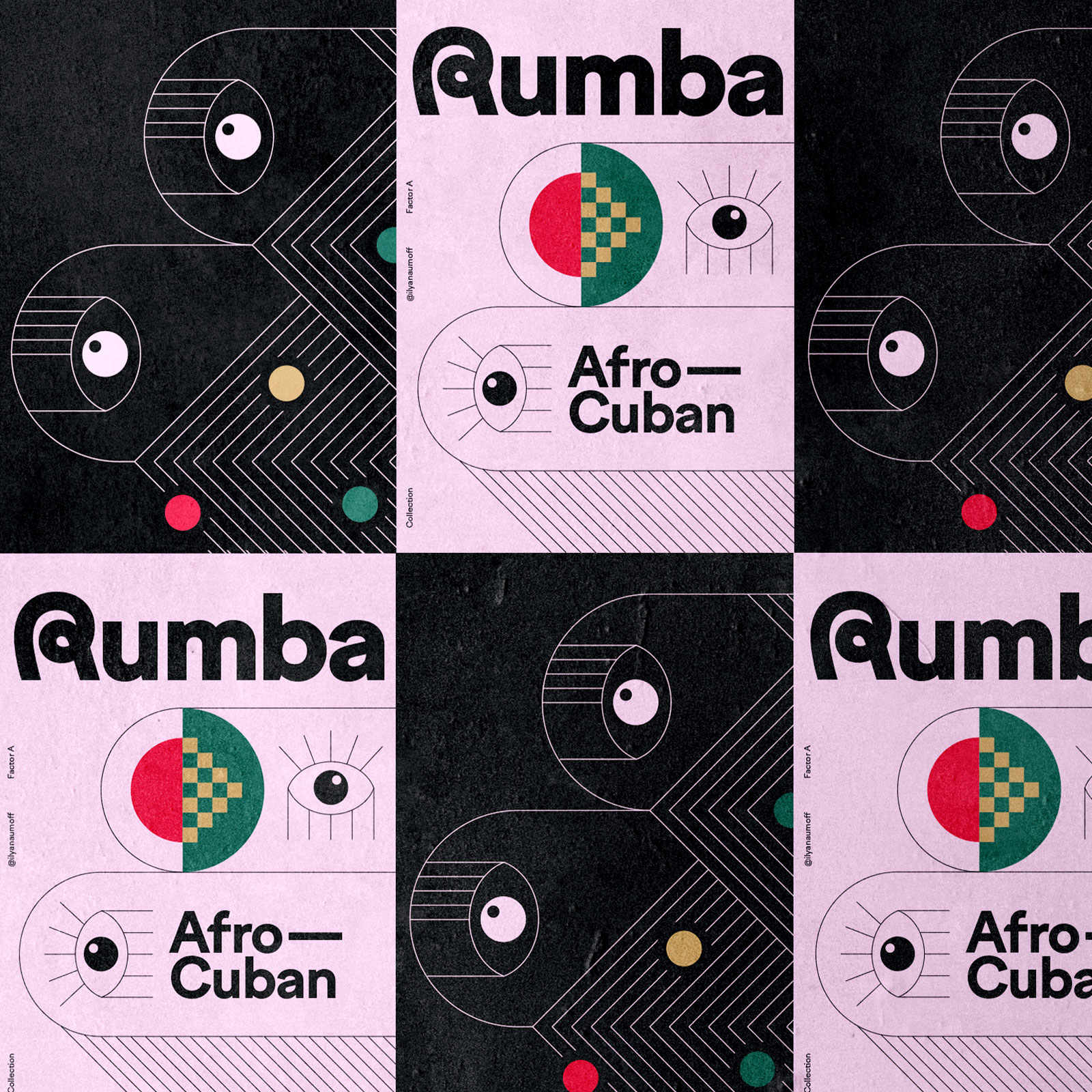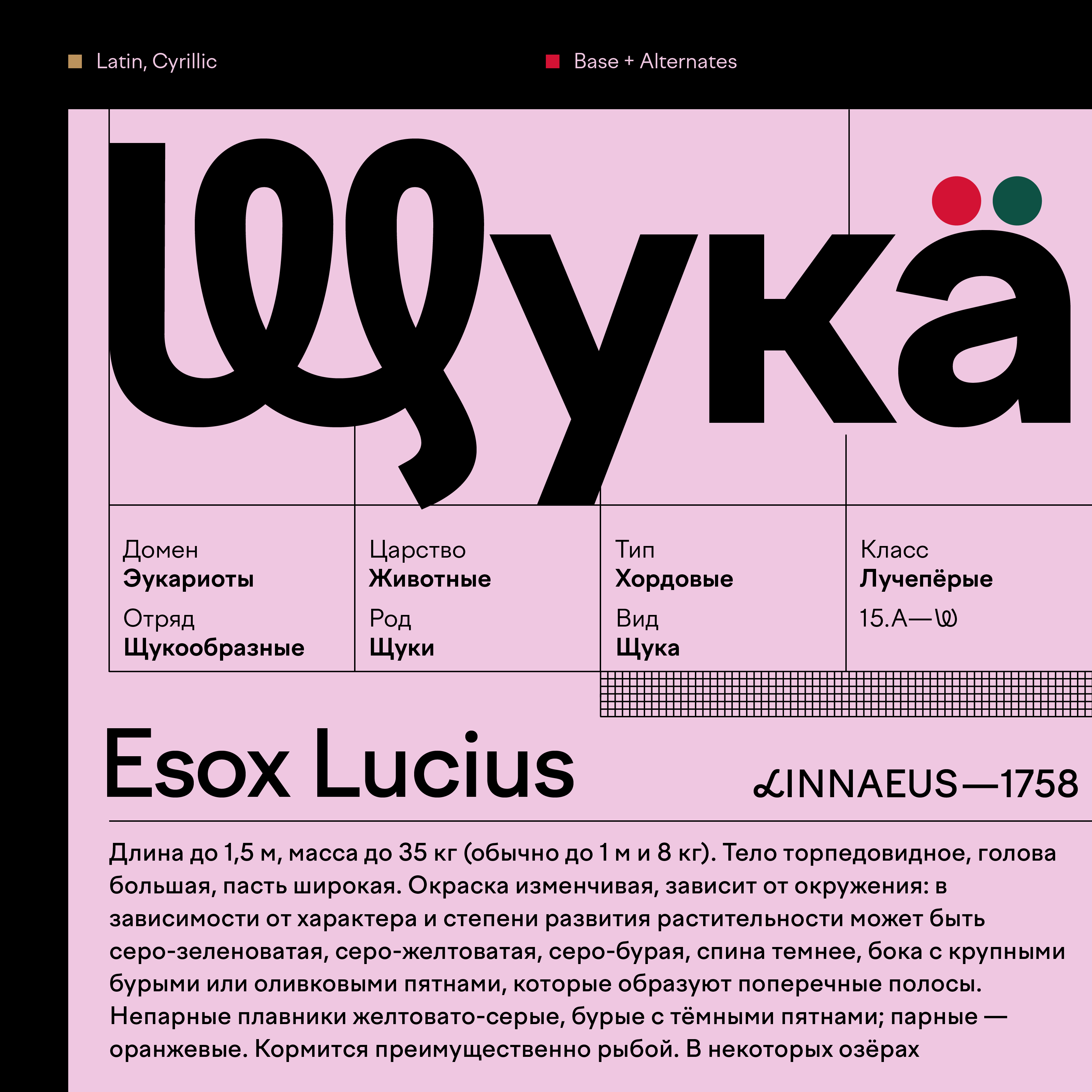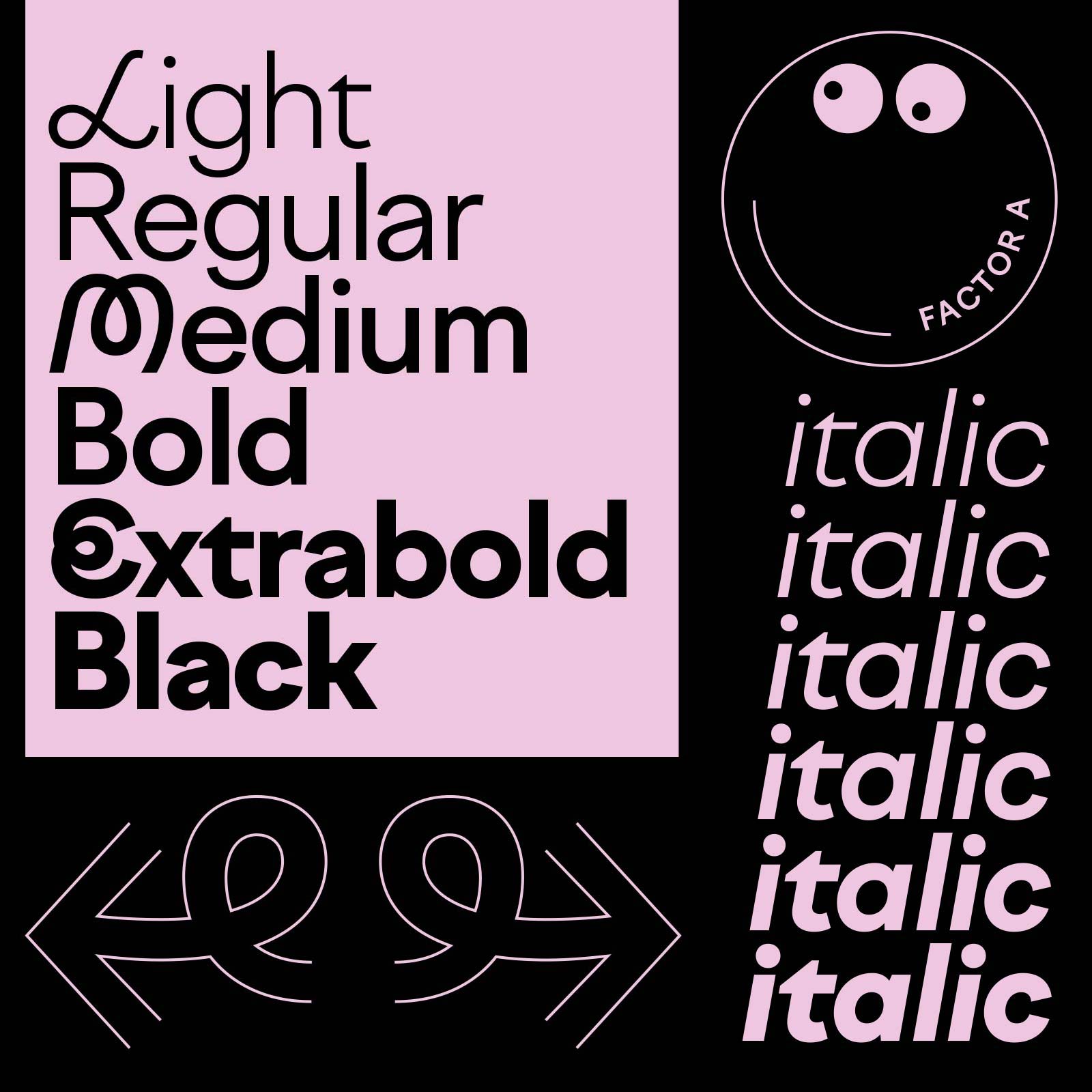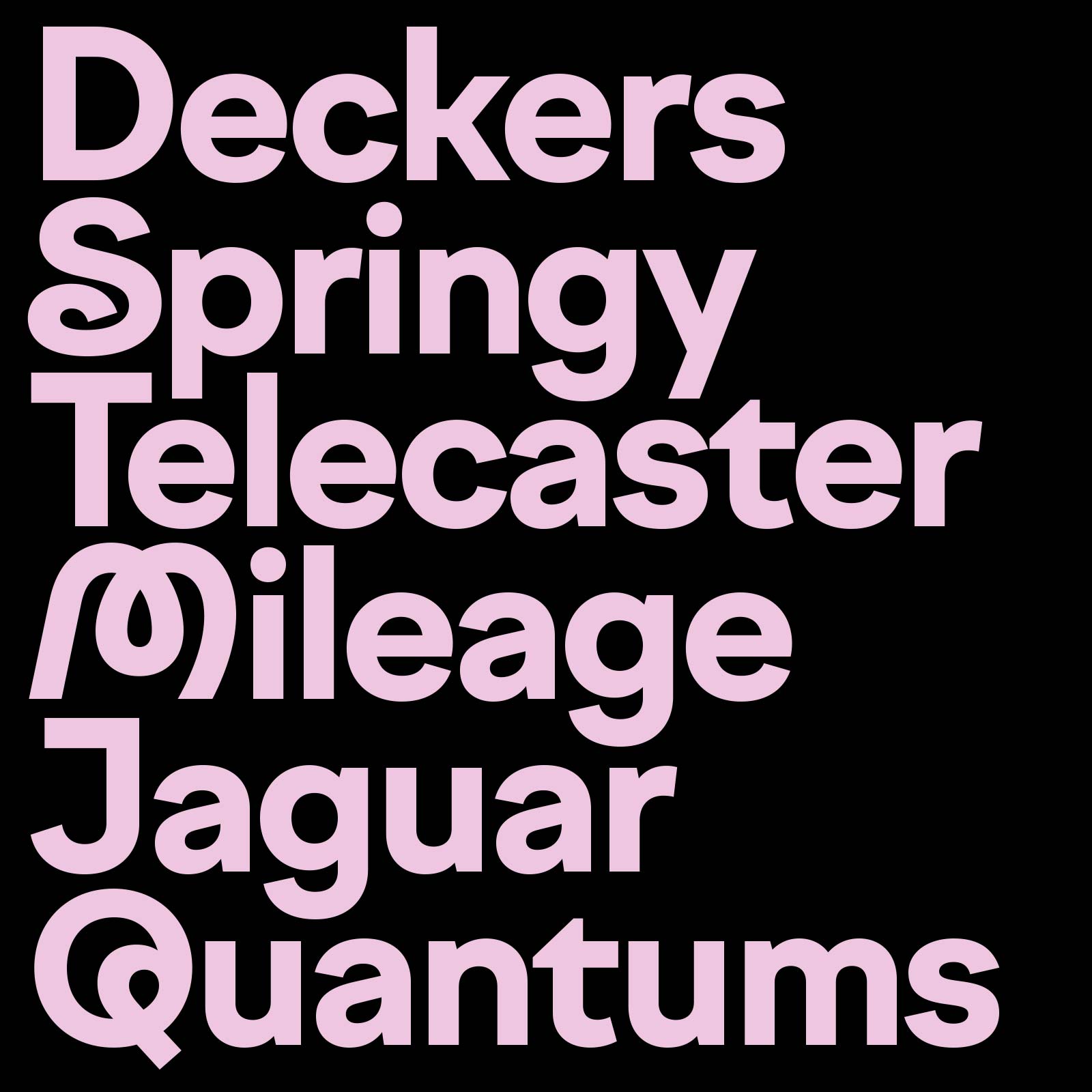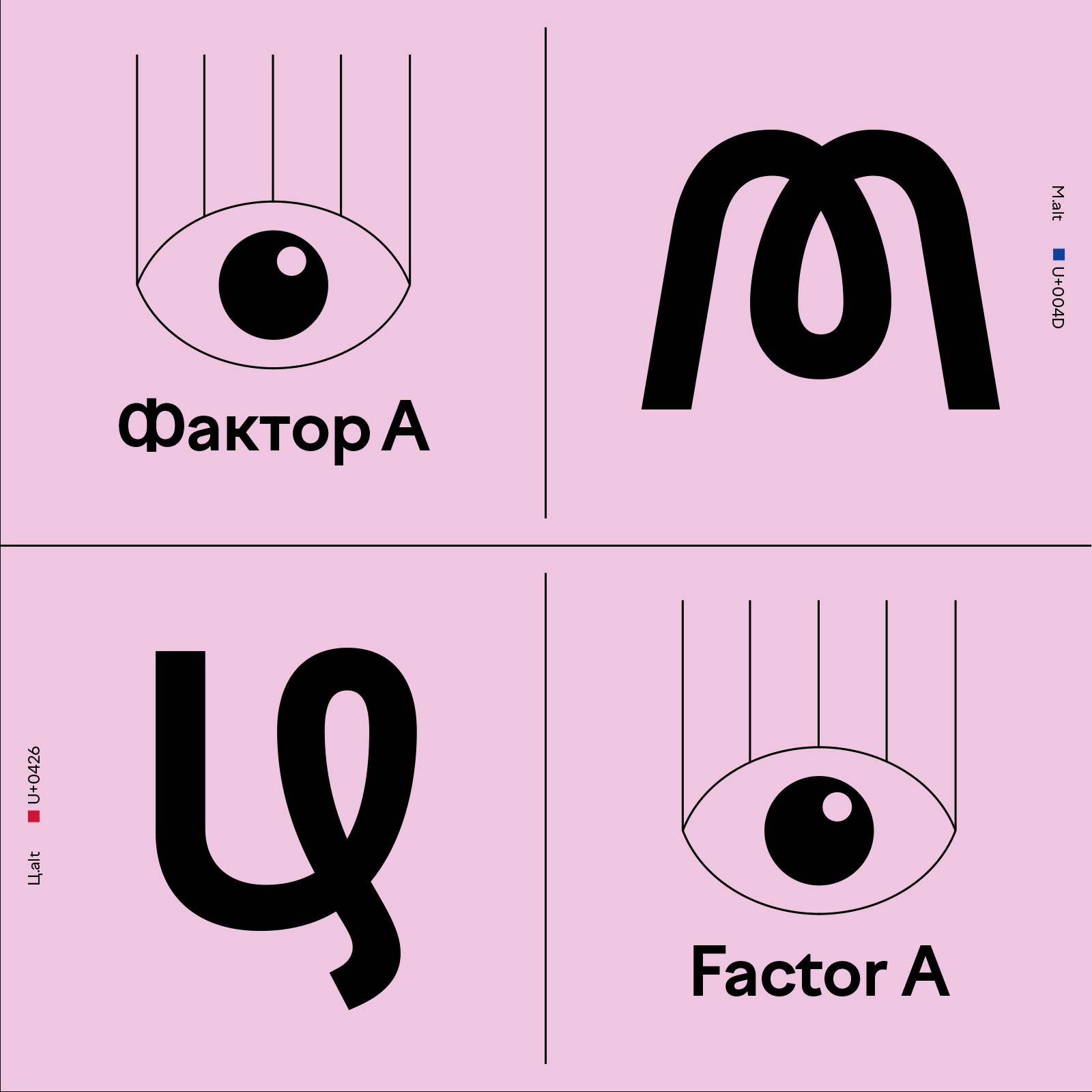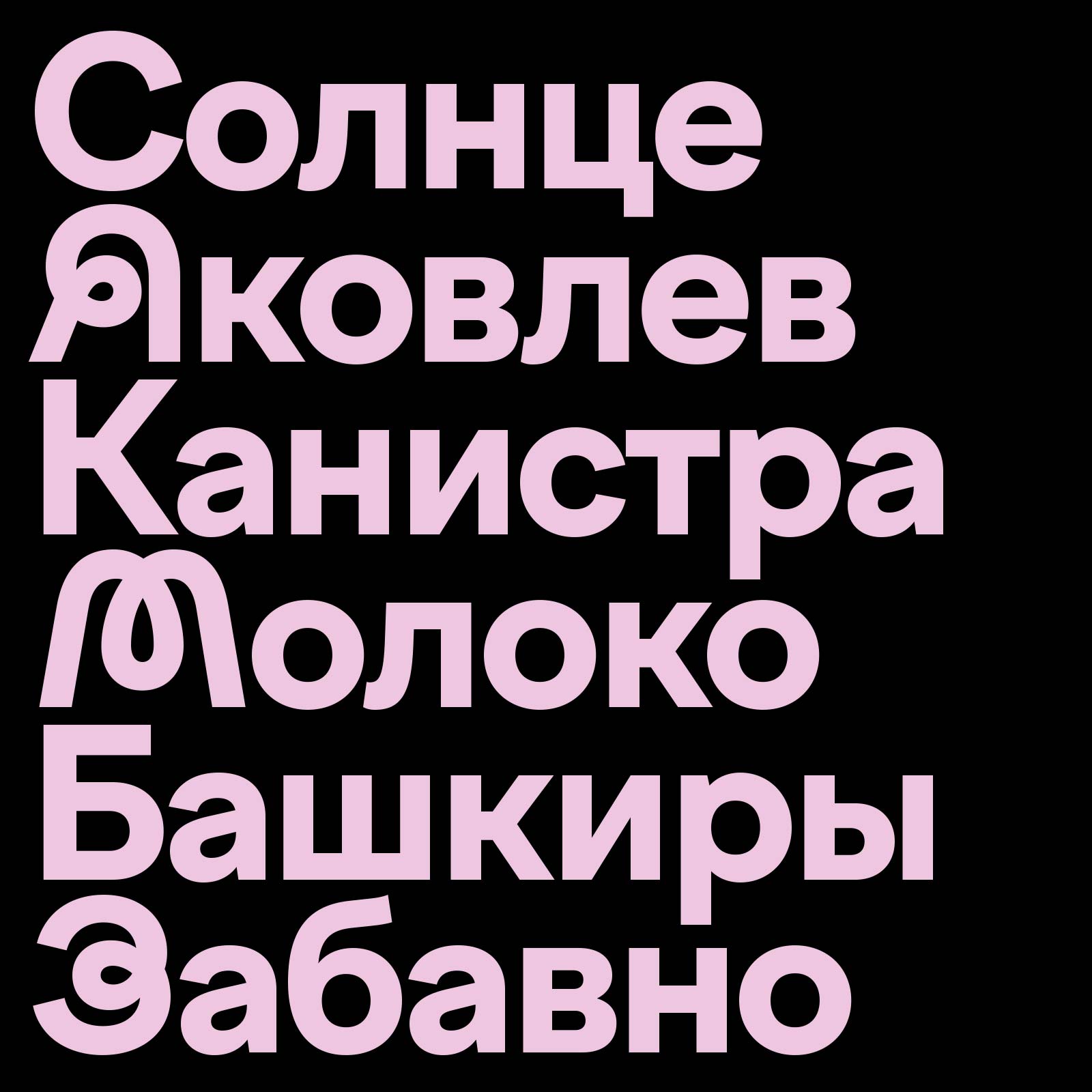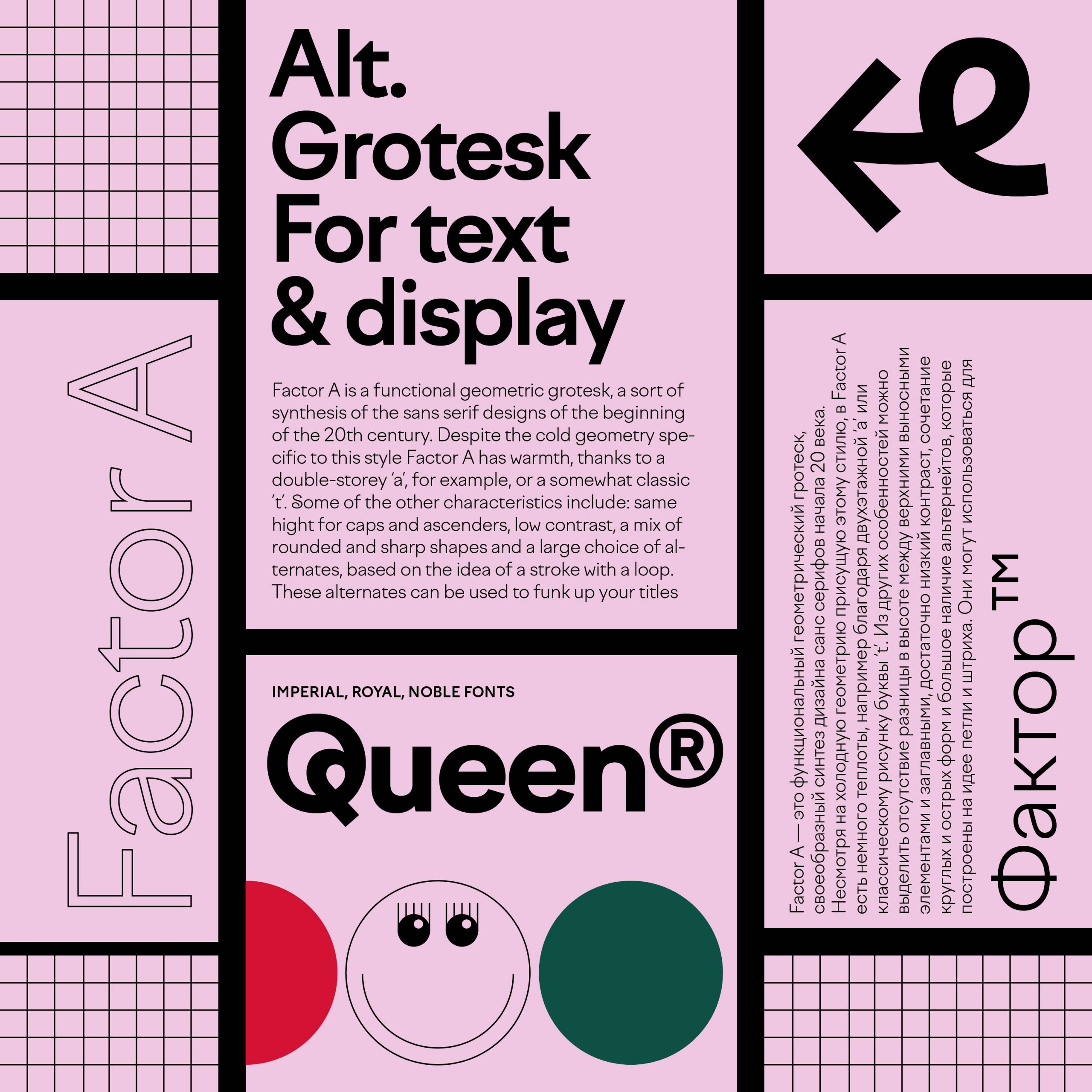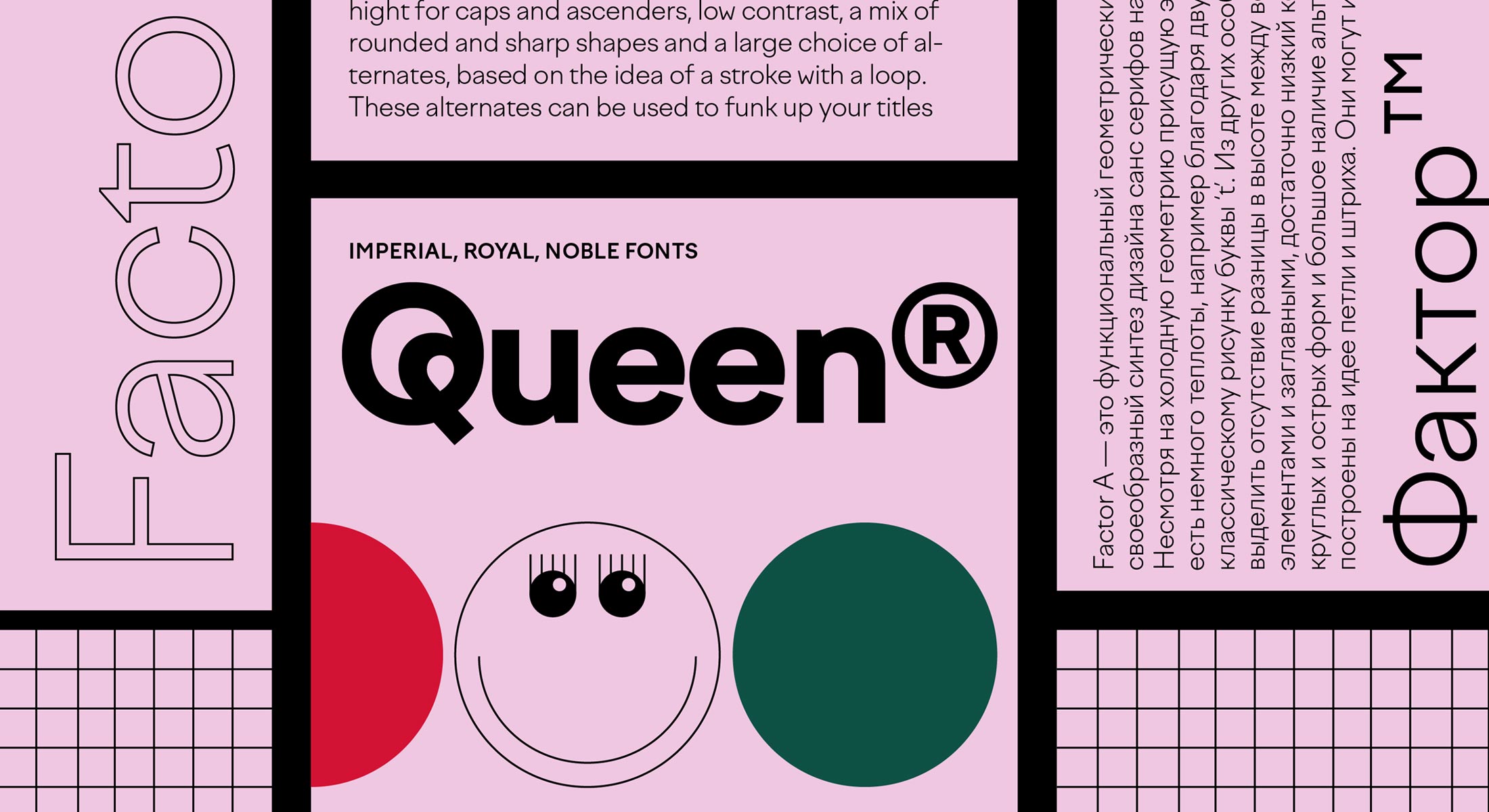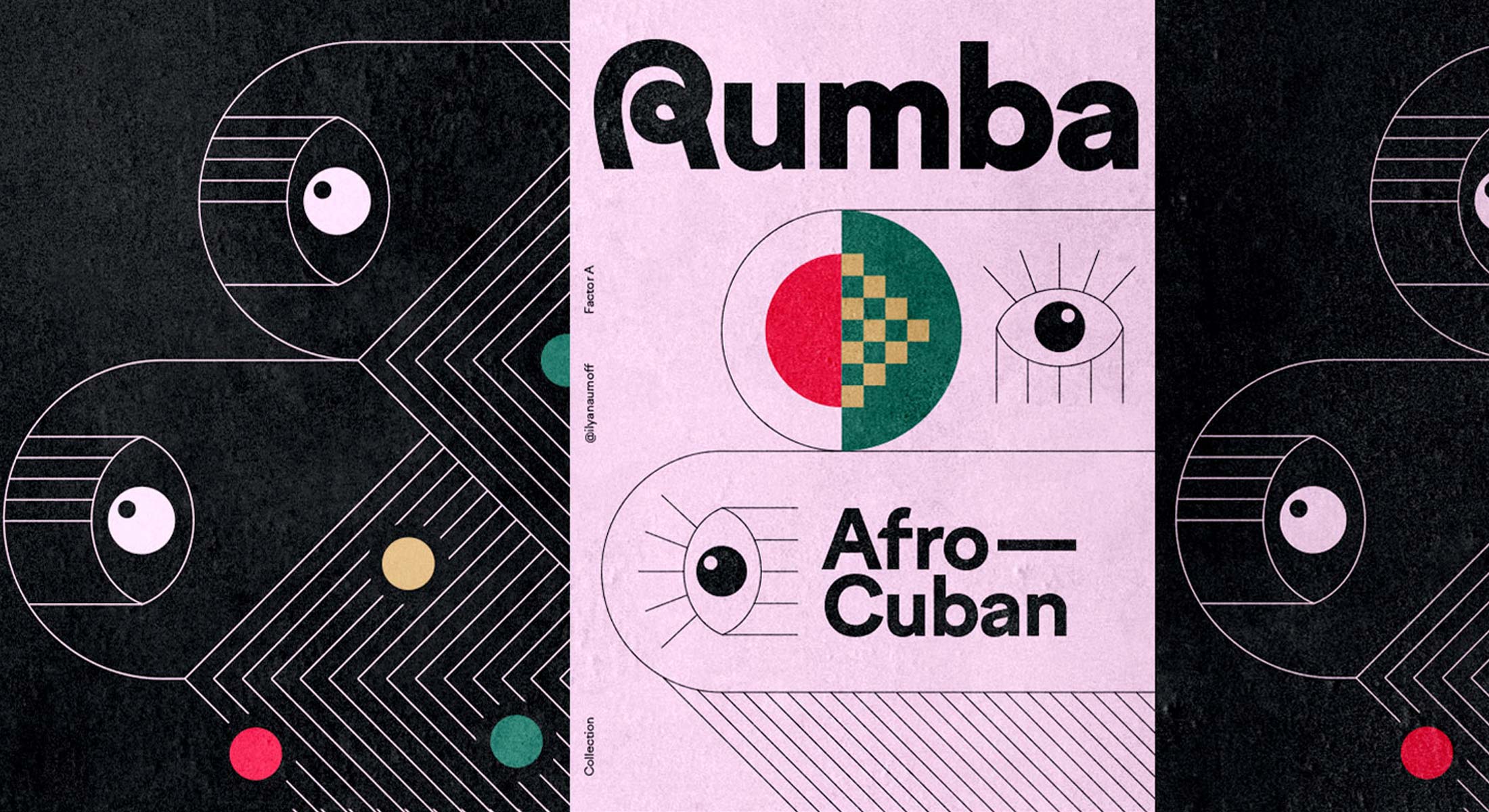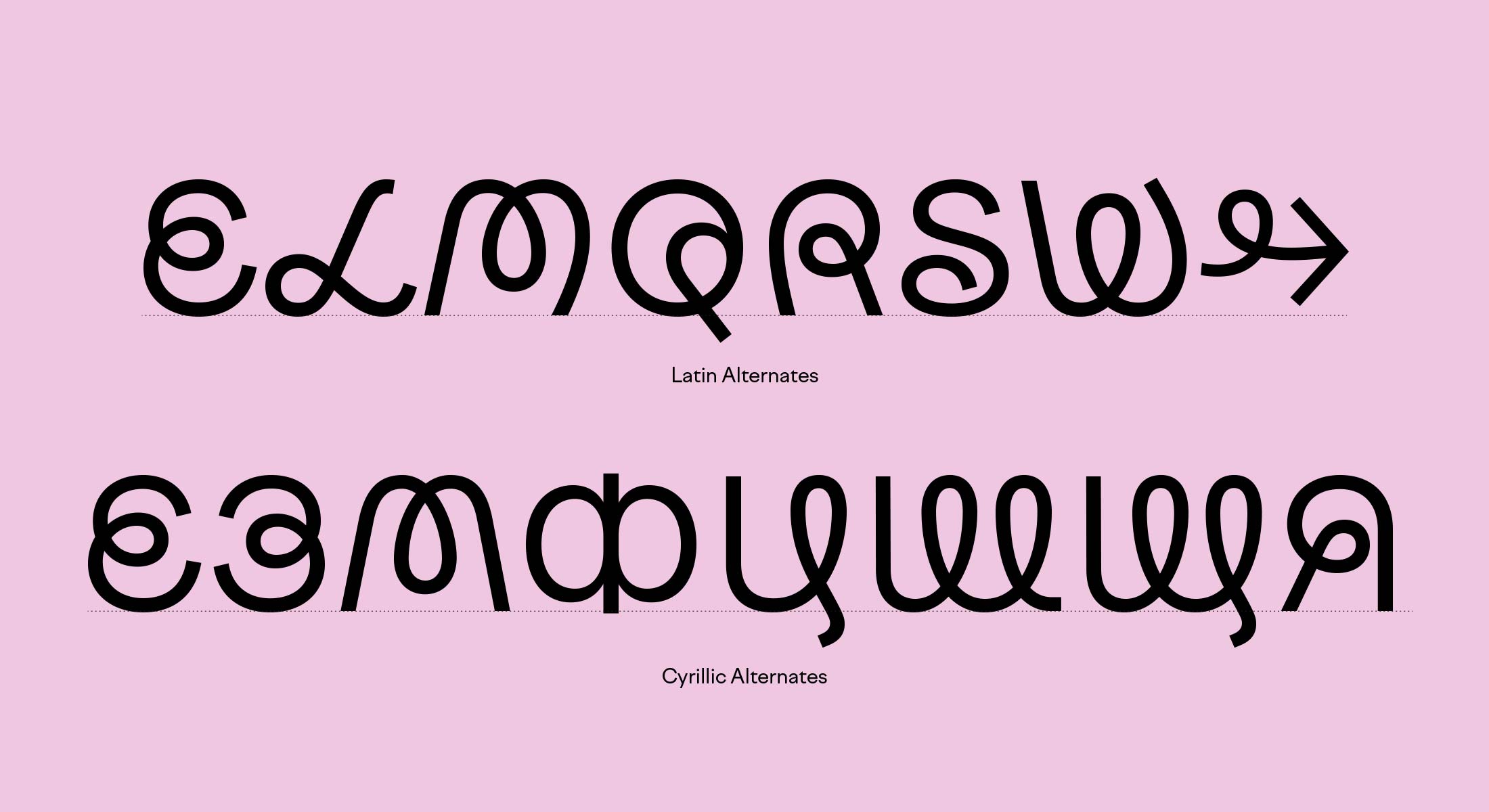
Factor A, a quick story
Factor A is a functional geometric grotesk, in a sense synthesizing the sans serif designs created in the beginning of the 20th century. Despite the cold geometry specific to this style, Factor A has warmth, thanks to, for example, a double-storey a, or a somewhat classic t. To name a few other font features, it has the same height for caps and ascenders, low contrast, and a mix of rounded and sharp shapes. It has a large choice of alternates, enabled by the concept of the hand-drawn loop. These alternates can be used to funk up your titles and logos. Factor A can be used at both display and text sizes for branding, web, signage… etc.
Scripts: Extended Latin, Cyrillic